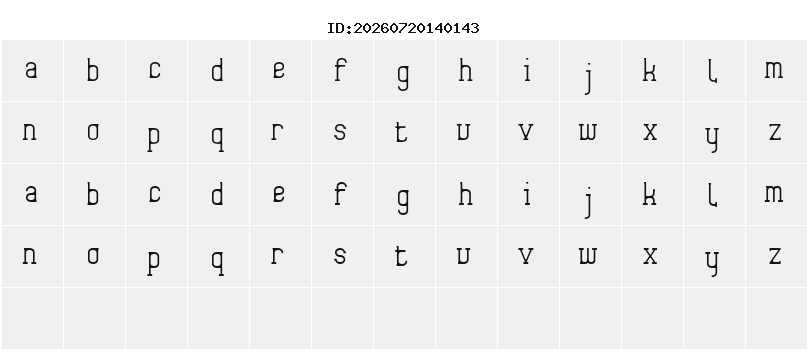
Frida01 Preview
• Font Name: Frida01
• Font ID: 1.000;pyrs;Frida01
• Full Font Name: Frida01
• PostScript Name: Frida01
• Character Count: 54
• Designer: Beno?t Sj?holm
• Manufacturer: Beno?t Sj?holm
About Frida01.ttf
Frida01.ttf is a modern, elegant sans-serif font designed for ultimate readability and visual harmony. Perfect for branding, headlines, web design, and print materials.